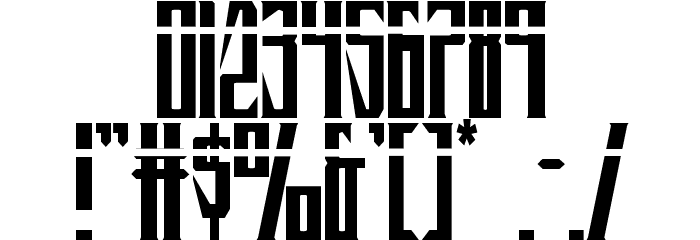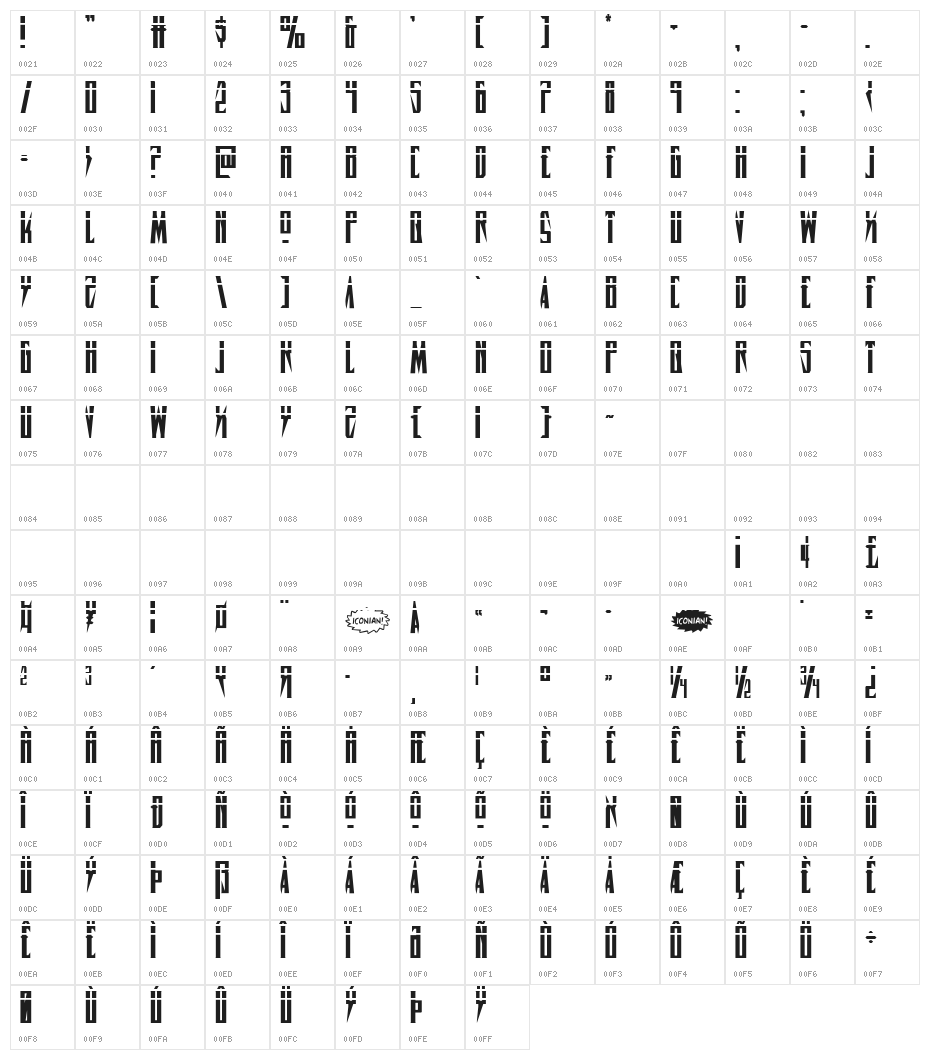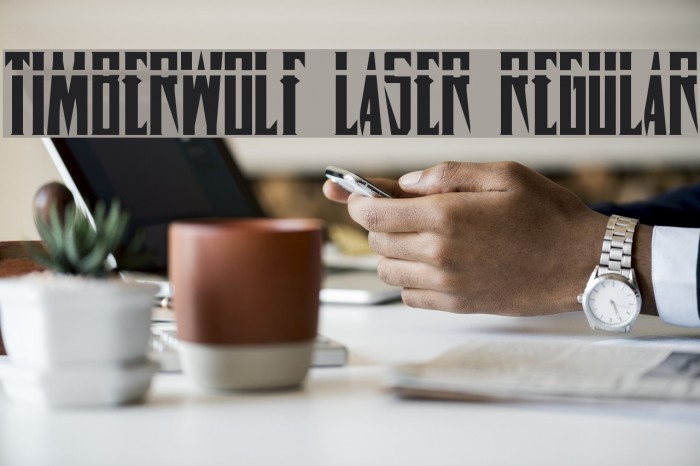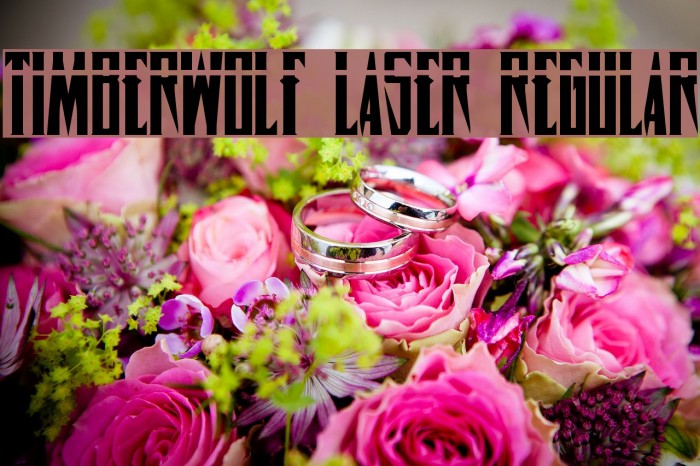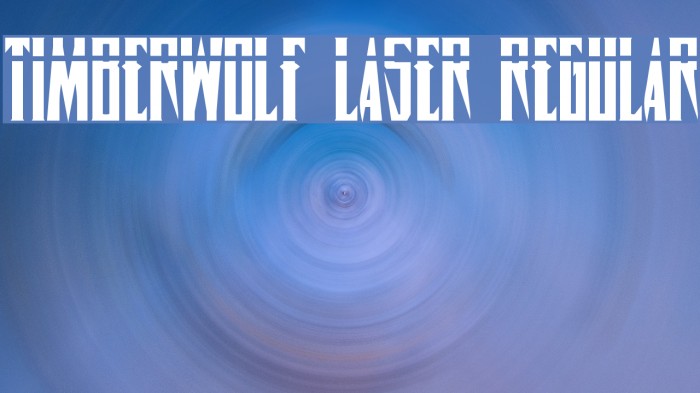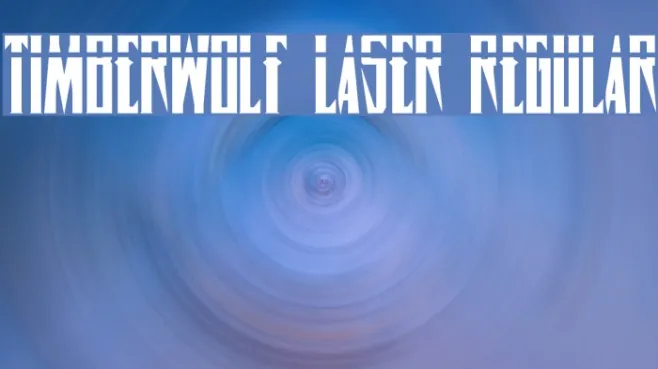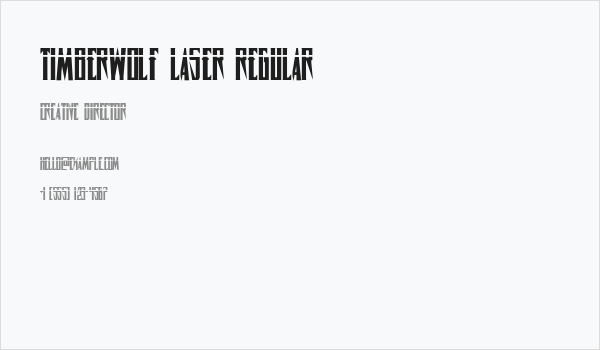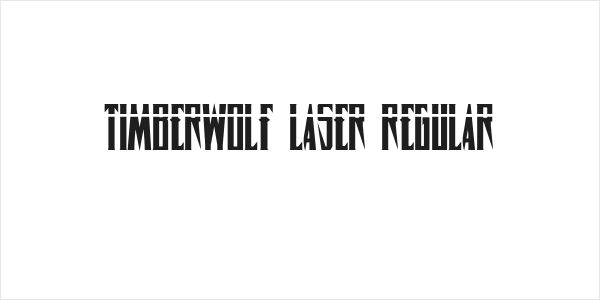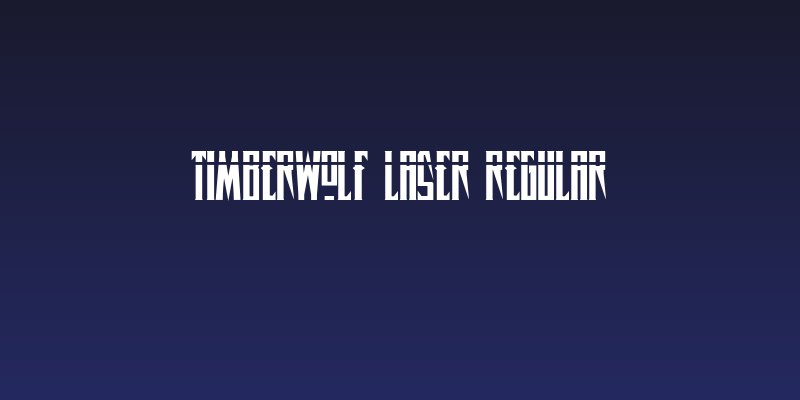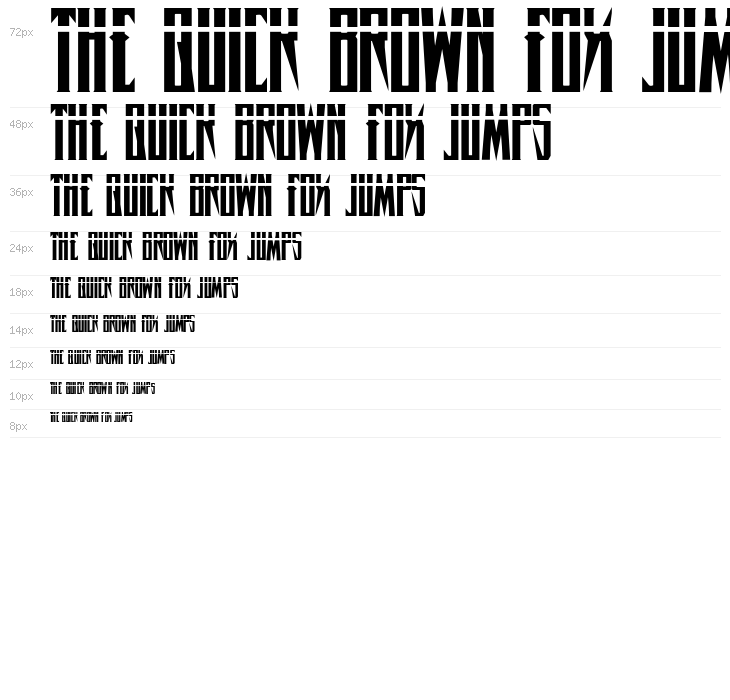
Timberwolf Laser Regular Font
Timberwolf Laser Regular Description
This font features a bold and striking design with a futuristic and angular aesthetic. The characters are sharply defined with a high contrast between thick and thin strokes, giving it a dynamic and edgy appearance. The uppercase letters are particularly distinctive, with elongated verticals and sharp diagonal cuts that create a sense of movement and energy. The lowercase letters maintain this angular style, ensuring consistency across the typeface. The numbers and special characters are equally bold and stylized, making them stand out in any design. This font is perfect for projects that require a modern and impactful look.